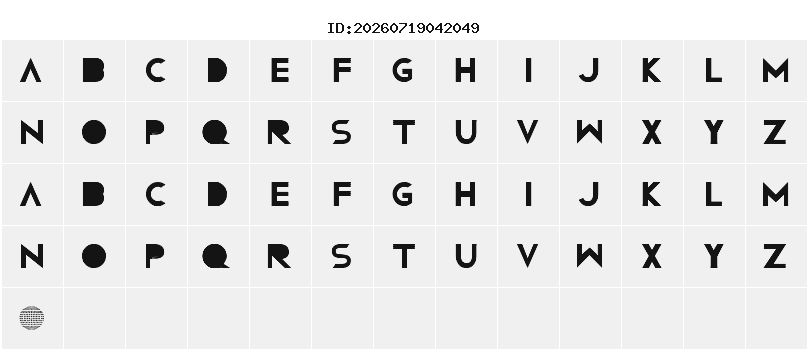
• Font Name: Confussion RNG
• Full Font Name: Confussion RNG
• Version: Version 1.00 July 19, 2008, initial release
• Character Count: 56
About Confussion RNG.ttf
Confussion RNG.ttf is a modern, elegant sans-serif font designed for ultimate readability and visual harmony. Perfect for branding, headlines, web design, and print materials.